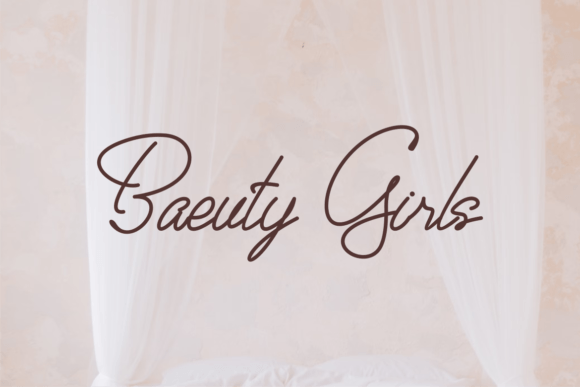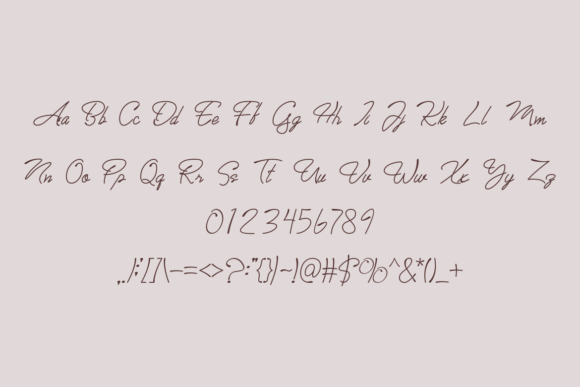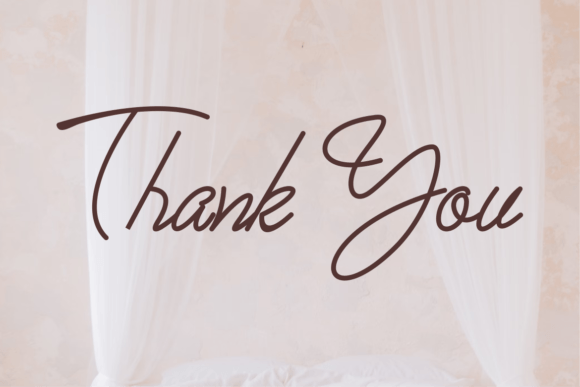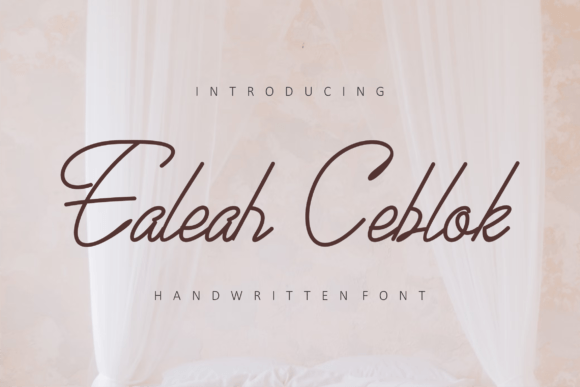
Ealeah Ceblok Font: Elevate Your Designs with Elegance and Sophistication
In the world of typography, a font can make or break a design. It’s the perfect blend of style, elegance, and readability that can elevate a creation from ordinary to extraordinary. If you’re a designer, craftsperson, or simply a font enthusiast, you’re in for a treat with the Ealeah Ceblok Font. This dazzling script font is a game-changer, offering a unique combination of neat craftsmanship and high detail that can enhance any project.
The Beauty of Ealeah Ceblok
Ealeah Ceblok is a script font that exudes elegance and sophistication. Its carefully crafted letters are designed to make a statement, with intricate details and a flowing script style that’s perfect for a variety of design applications. Whether you’re working on a branding project, a wedding invitation, or a packaging design, Ealeah Ceblok is the perfect choice for those who want to add a touch of luxury and refinement to their work.
Key Features of Ealeah Ceblok Font
- Neatly Crafted: Ealeah Ceblok’s letters are meticulously designed to ensure a clean and polished look that’s perfect for both digital and print applications.
- Highly Detailed: The font’s intricate details make it stand out from other script fonts, adding a level of sophistication and elegance to any design.
- Versatile: Ealeah Ceblok can be used for a wide range of projects, from branding and advertising to packaging and editorial design.
- Easy to Read: Despite its ornate details, Ealeah Ceblok remains highly readable, making it perfect for body text and headlines.
Why Choose Ealeah Ceblok Font?
With so many fonts available, why choose Ealeah Ceblok? Here are just a few reasons why this font stands out from the crowd:
- Unique Style: Ealeah Ceblok’s distinctive script style sets it apart from other fonts, ensuring your designs will stand out in a crowded marketplace.
- Time-Saving: With Ealeah Ceblok, you can achieve professional-looking results without spending hours on design. Its versatility and readability make it perfect for quick turnaround projects.
Tips for Using Ealeah Ceblok Font
To get the most out of Ealeah Ceblok, here are some expert tips:
- Pair with Sans-Serif Fonts: Combine Ealeah Ceblok with a clean sans-serif font for a striking contrast that adds visual interest to your design.
- Experiment with Colors: Ealeah Ceblok looks stunning in a range of colors, from rich jewel tones to metallic shades. Don’t be afraid to get creative and try out different color combinations.
- Use for Headlines and Titles: Ealeah Ceblok’s ornate details make it perfect for headlines and titles. Use it to add a touch of drama and flair to your designs.
In conclusion, Ealeah Ceblok Font is a dazzling script font that’s sure to elevate your designs to new heights. Its unique blend of elegance, sophistication, and readability makes it a valuable addition to any font library. Whether you’re a seasoned designer or just starting out, Ealeah Ceblok is the perfect choice for anyone looking to add a touch of luxury and refinement to their work.